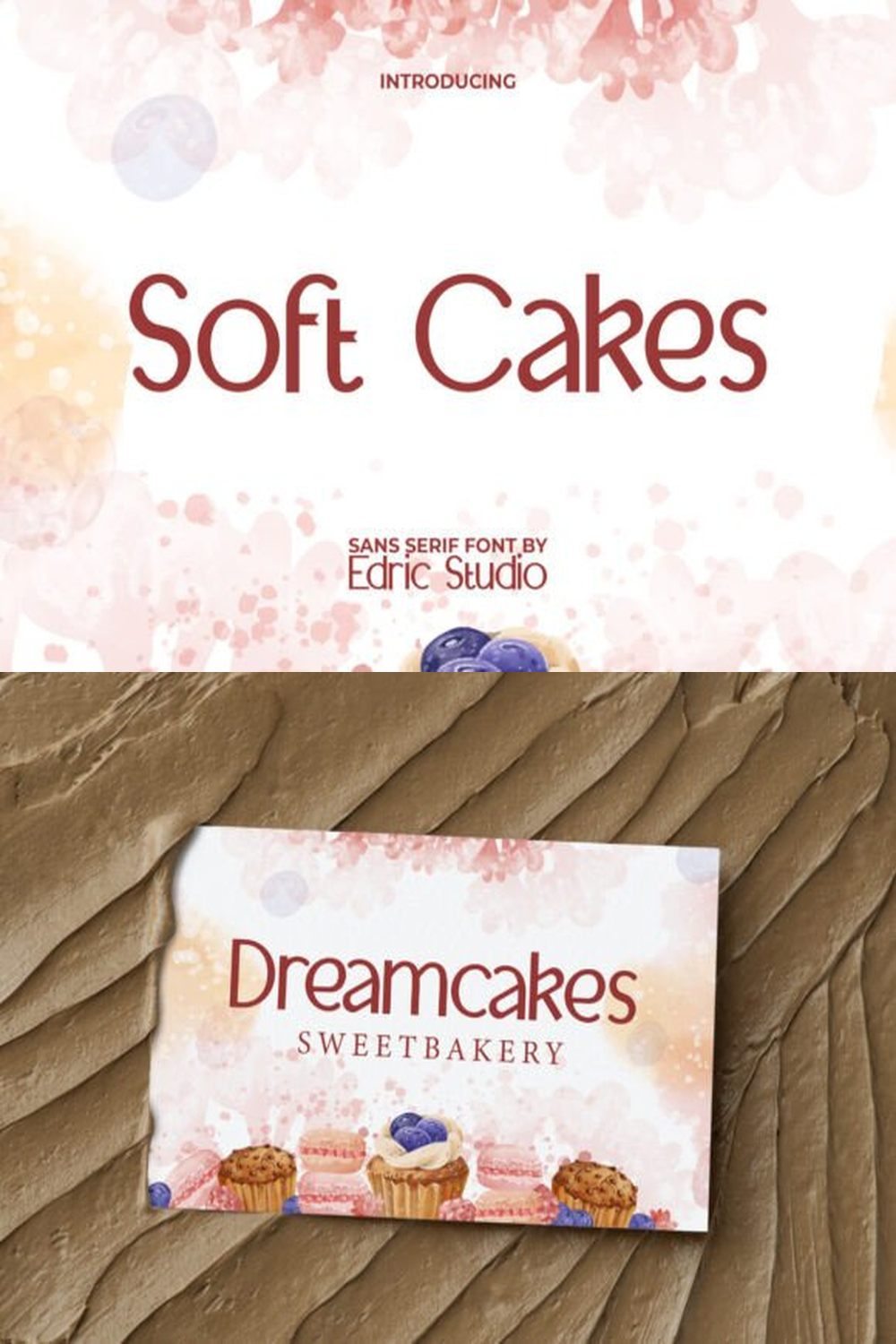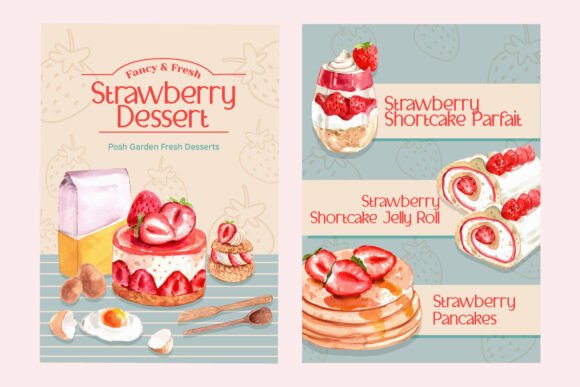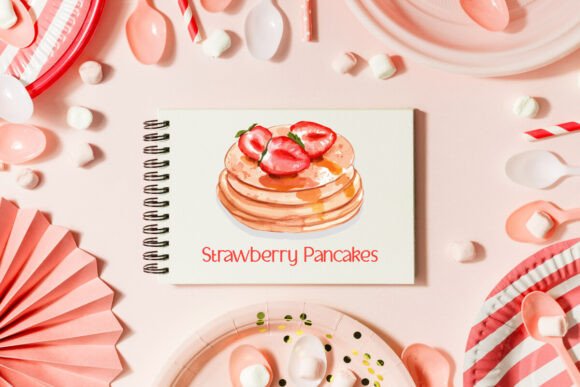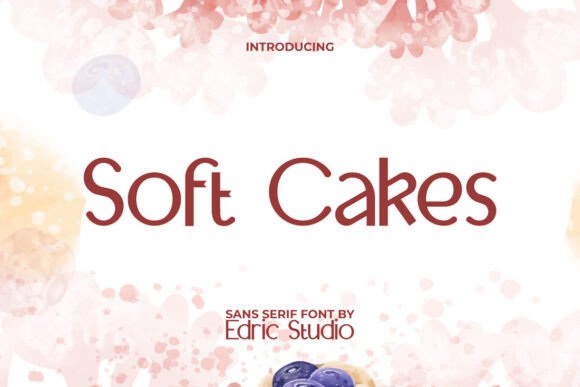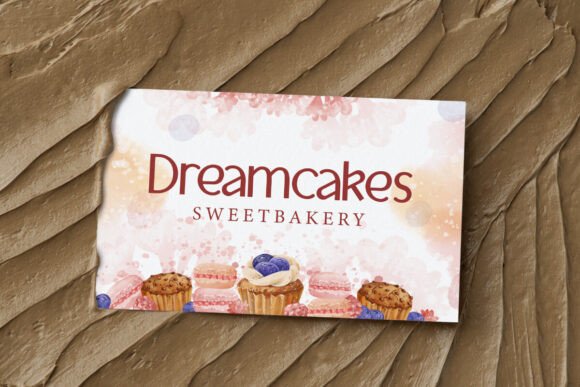
Soft Cakes Font: A Cute Sans Serif for Modern Branding & DIY Projects
About the Soft Cakes Font
Get ready to be inspired by Soft Cakes Font, a fresh and dynamic typeface for modern creators. Soft Cakes Font is a Stunning minimalist modern sans serif display font. This font has a simple and clean style that makes every design look interesting. It will be suitable for any business, such as accessories, cafe, entertainment, fashion, food and beverages, kids stuff, party or event, photography, printing, publishing, restaurant, writer, and many more!